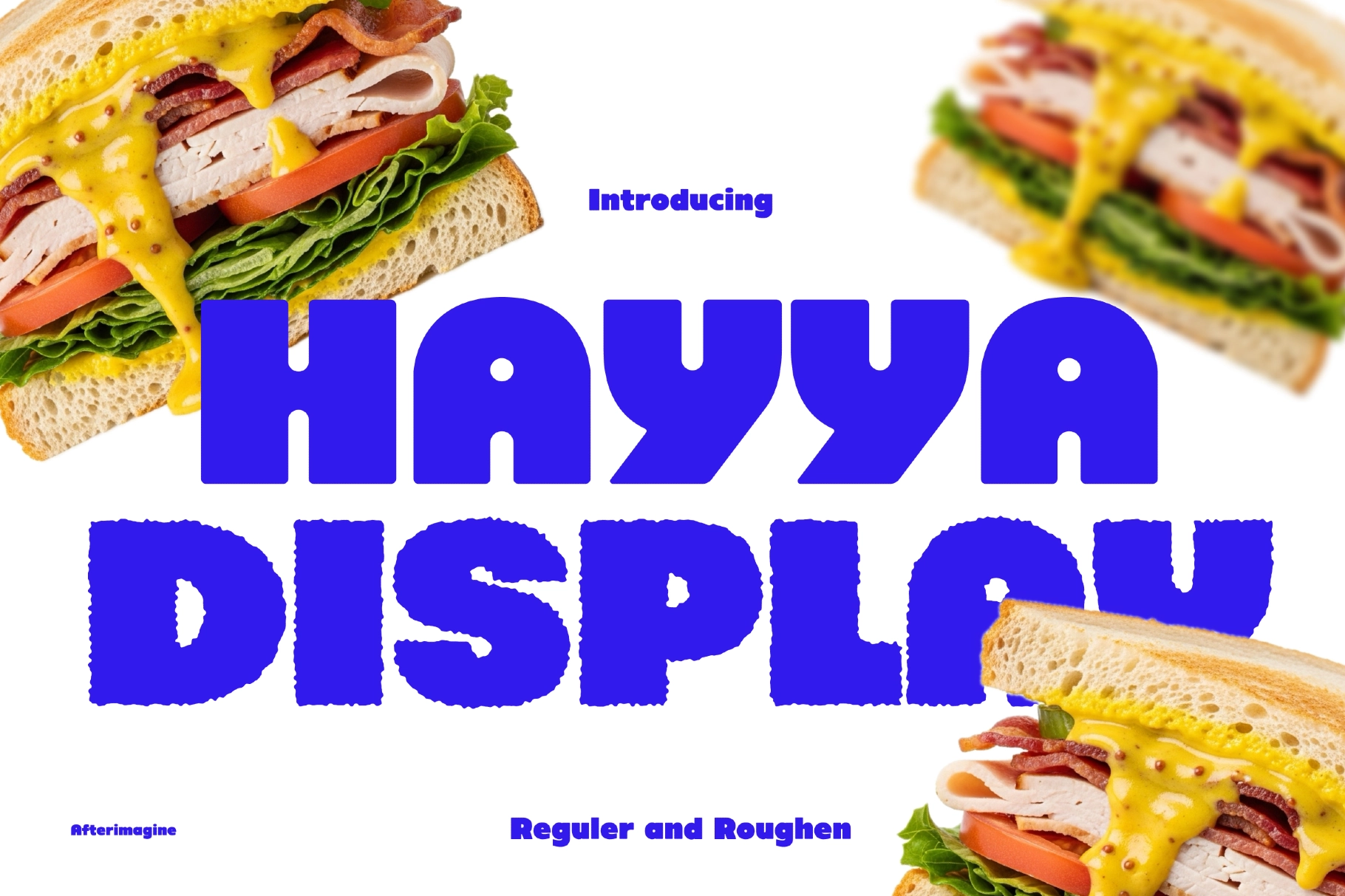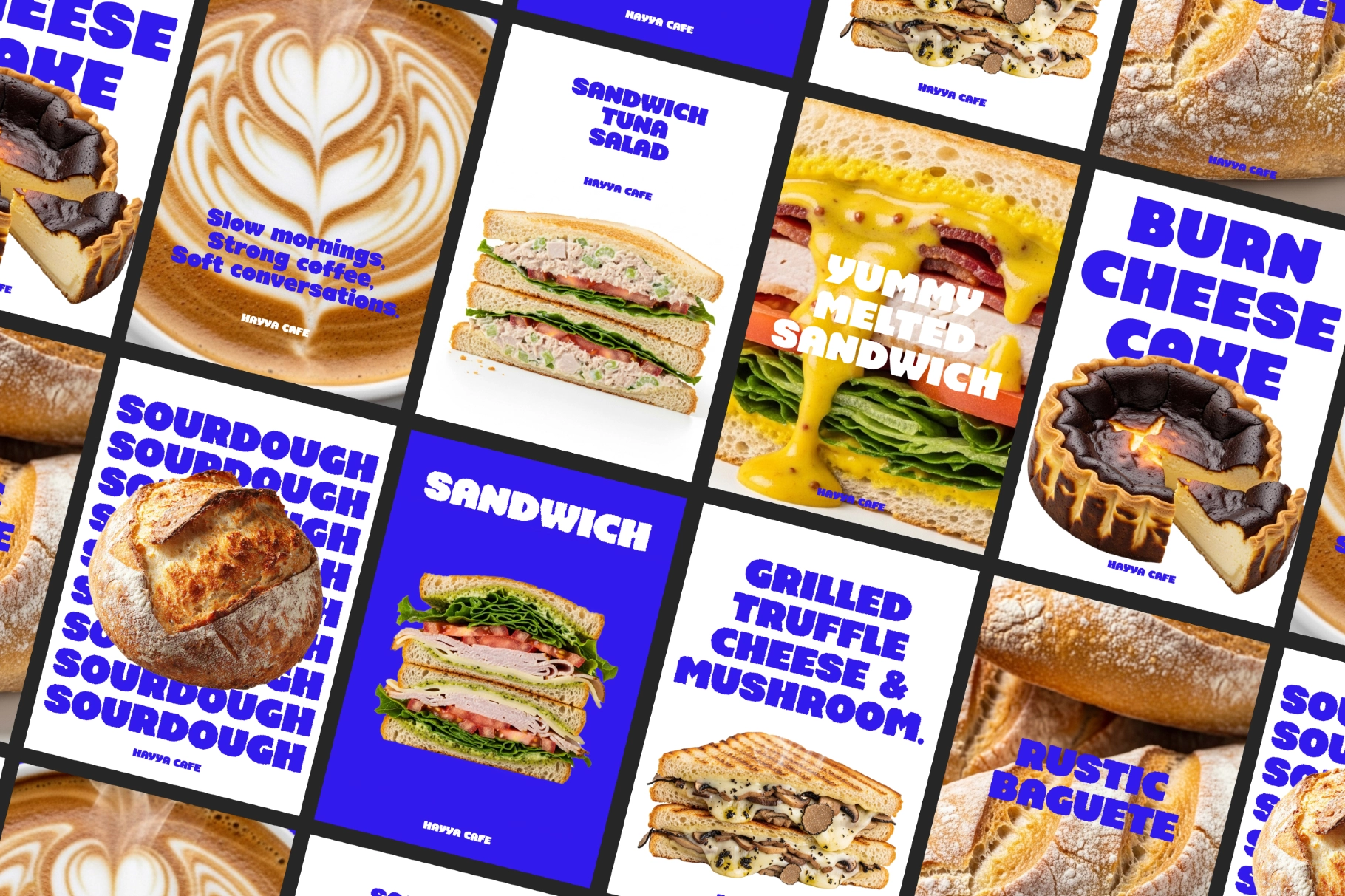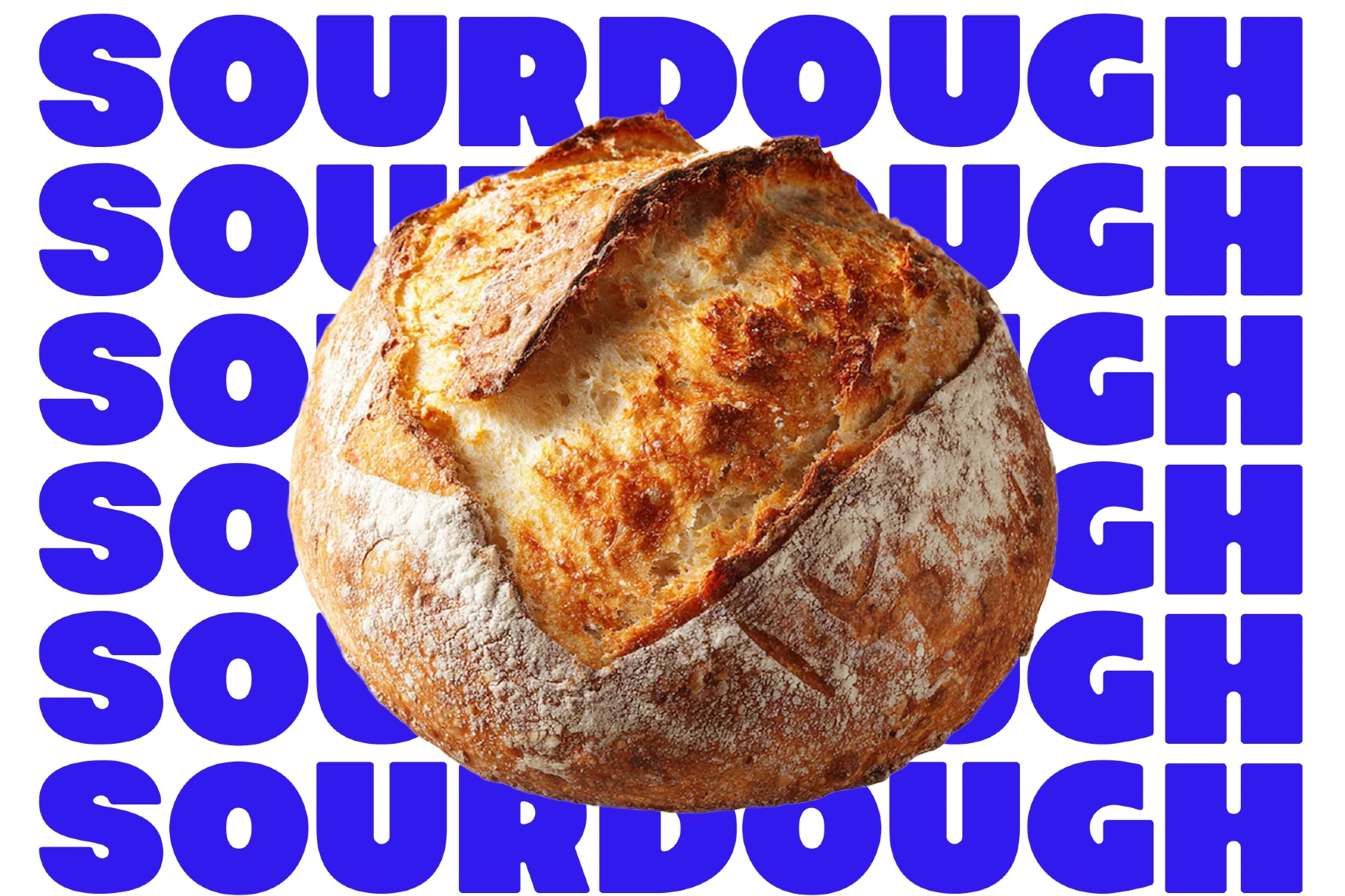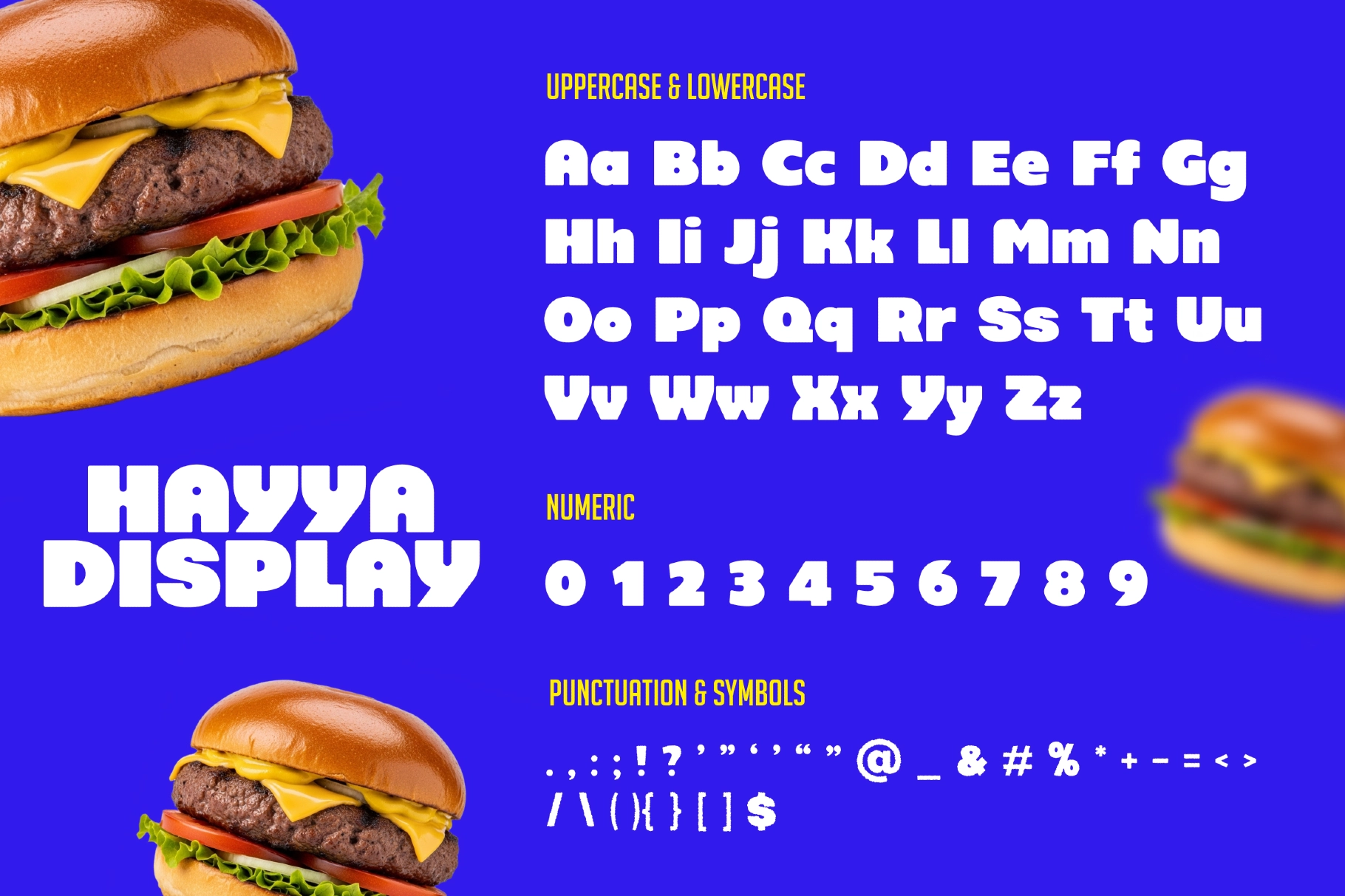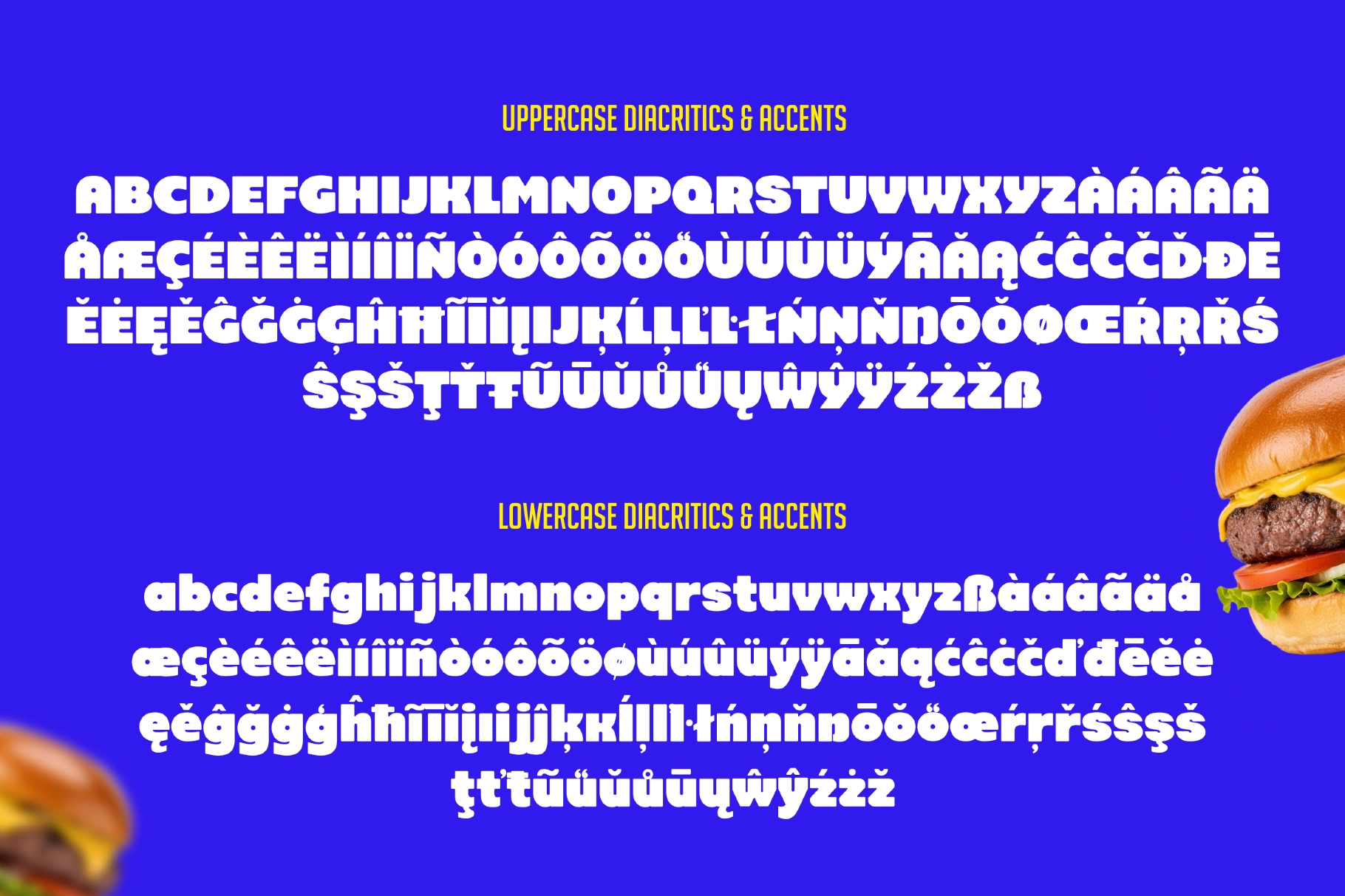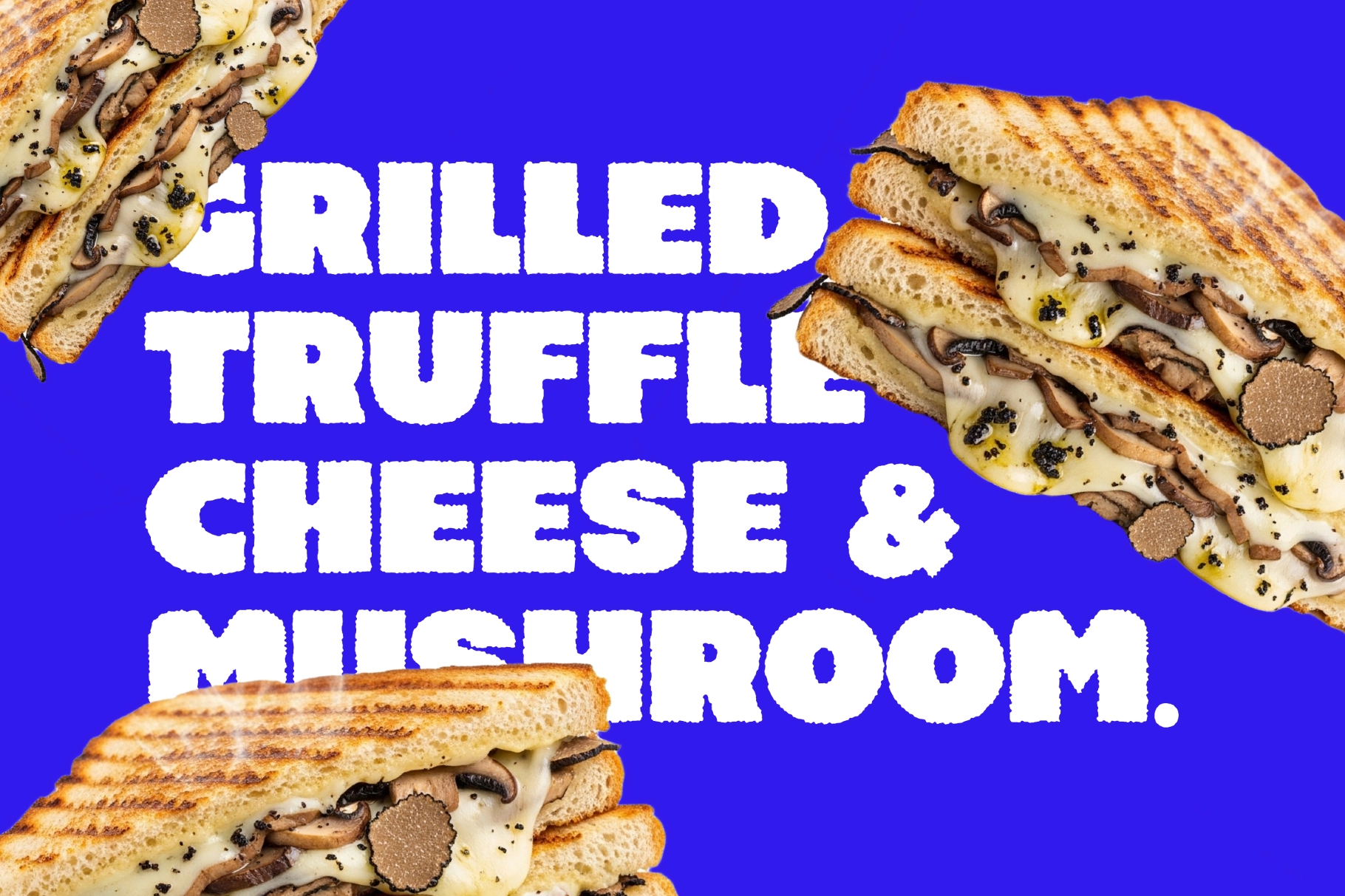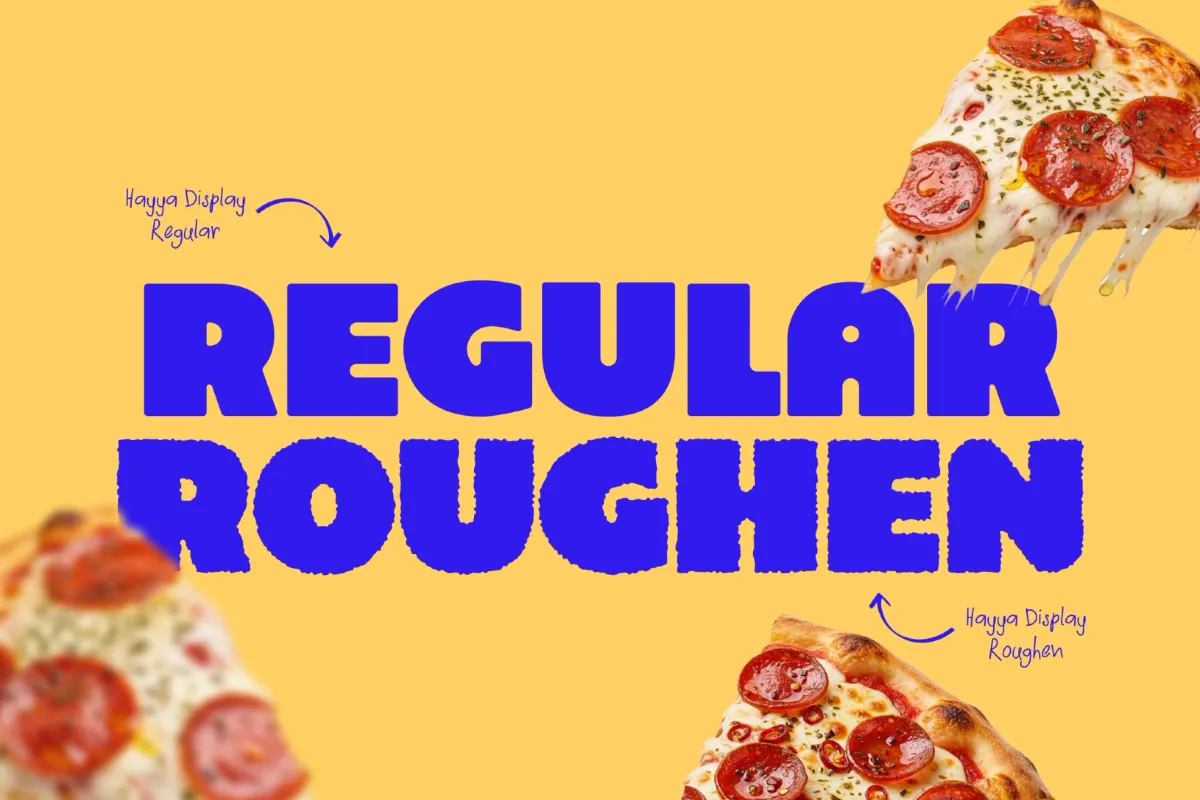
Hayya Display Font — Regular & Roughen
Hayya Display Font — Regular & Roughen is a bold, chunky display typeface designed for maximum visual impact with its playful rounded shapes and heavy proportions. Available in two versatile styles — clean Regular for smooth typography and textured Roughen for raw, character-filled designs — it delivers loud statements across modern projects.
Perfect for food branding, posters, packaging, restaurant menus, headlines, and commercial graphics, Hayya transforms text into striking graphic elements with confident personality and excellent large-scale readability. The dual-style approach gives designers flexibility for both polished professional work and gritty, authentic visuals.
Built for attention-grabbing applications, this display font family excels in creating memorable brand identities and expressive layouts that demand to be noticed.
- Regular style
- Roughen style
- Uppercase and lowercase characters
- Numbers & punctuation
- Multilingual